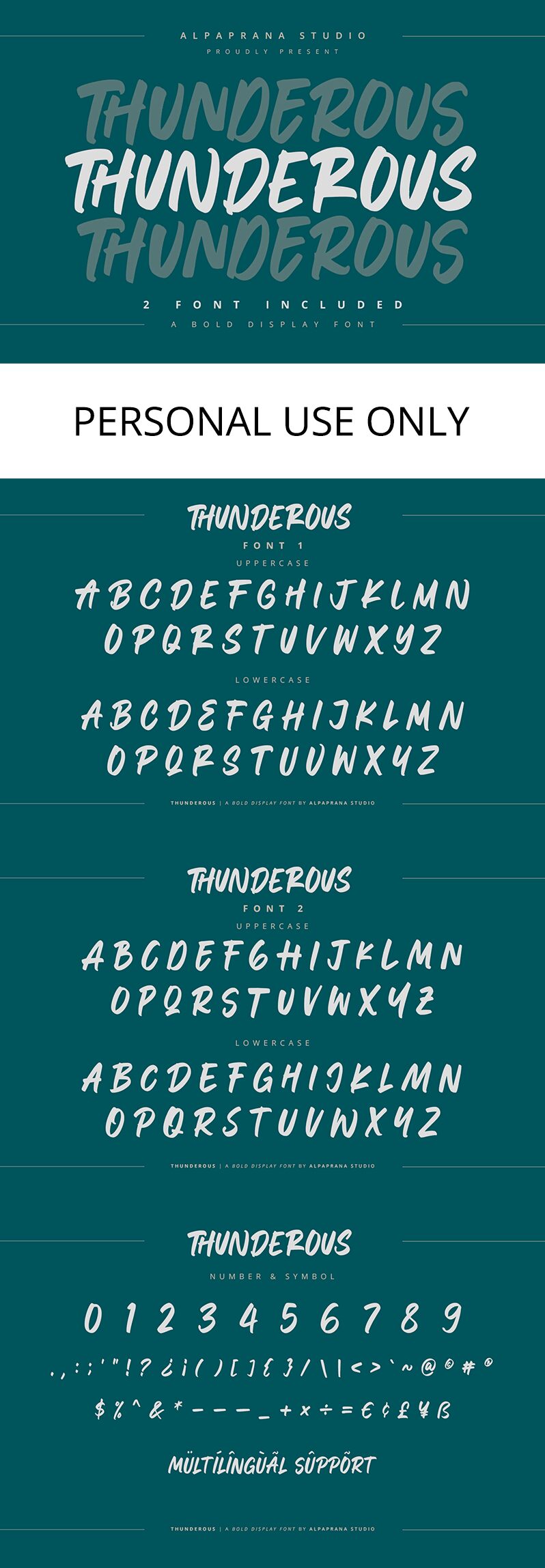
Thunderous One
Thunderous One, a striking brush font crafted by the talented team at Alpaprana Studio, commands attention with its bold, expressive strokes. This dynamic typeface embodies a captivating blend of raw energy and refined elegance, leaving a lasting impression on the viewer. The irregular, organic lines create a sense of movement and spontaneity, evoking the feel of a hand-lettered masterpiece.
Thunderous One's versatility makes it a compelling choice for a wide range of design projects. Its powerful, emotive quality lends itself well to branding, editorial layouts, and even packaging design, where it can inject a sense of dynamism and personality. Equally suitable for high-impact headlines or subtle accents, this font possesses the versatility to elevate various design elements, from eye-catching logos to impactful marketing materials.